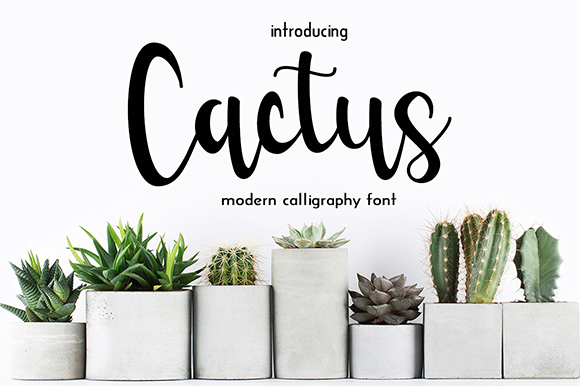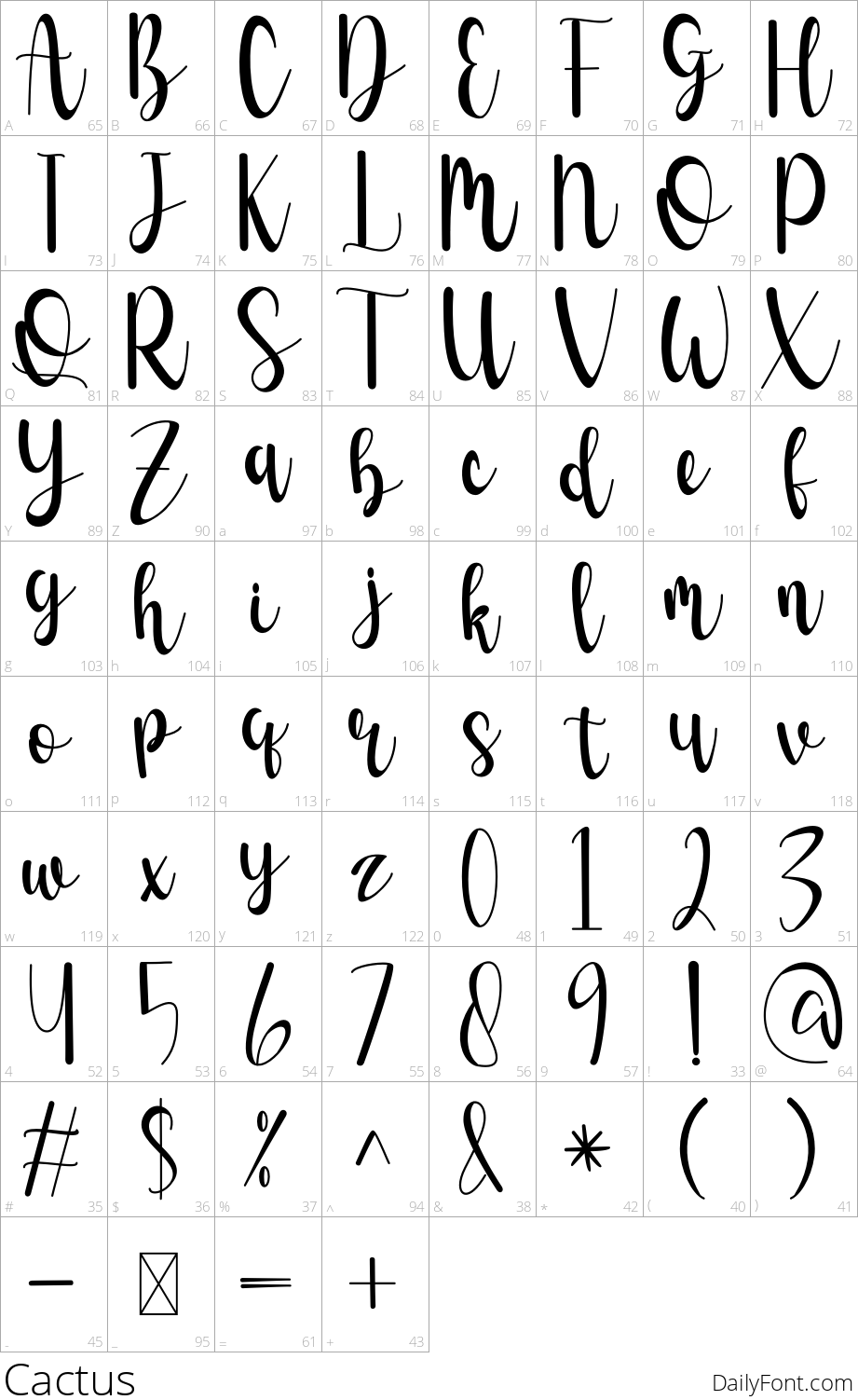
Cactus
Cactus embodies a flowing handwritten style, characterized by an elegant touch, ideal for enhancing your cherished projects. Embrace its uniquely distinctive and enduring flair, utilizing it to craft breathtaking designs!